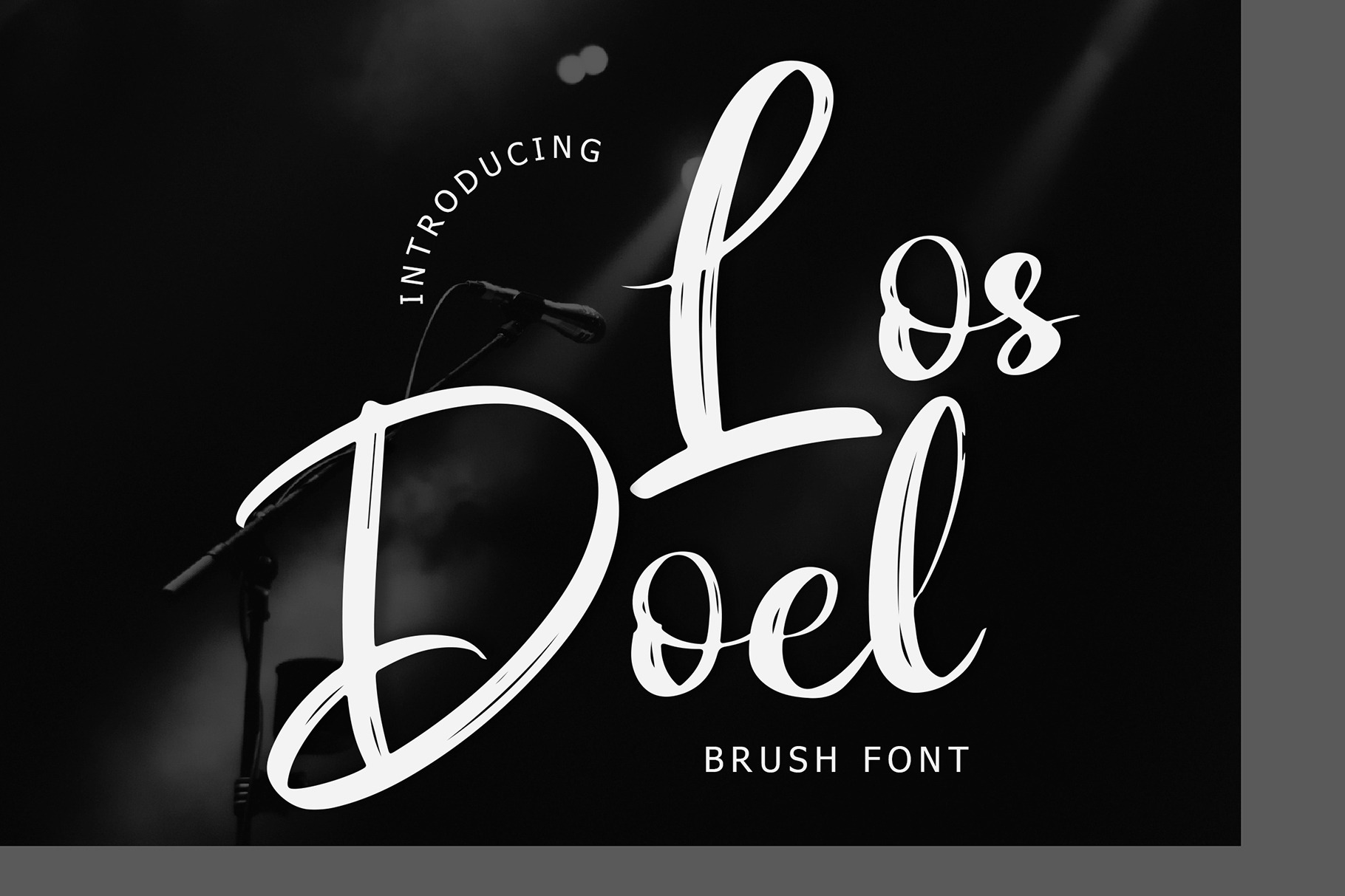
Los Doel Brush Script Font
Los Doel Brush Script Font is a Modern Brush Script font that can make your text appear elegant, luxurious, and modern!
Los Doel is perfect for branding projects, logo, wedding designs, social media posts, advertisements, product packaging, T-shirt design, product designs, label, photography, watermark, invitation, stationery, and any projects.